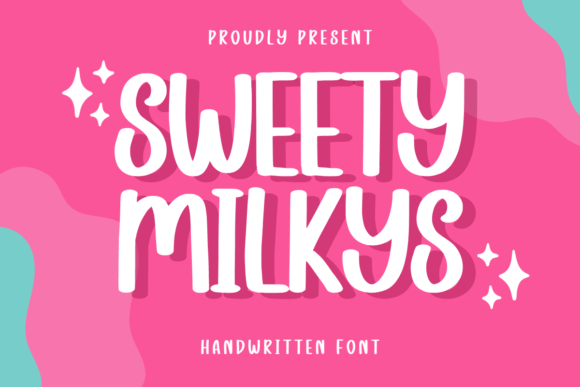
Step into the realm of enchanting typography with Sweet Milkys, a font family that personifies adorable handwriting and exudes a captivating charm. Every letter dances and twirls across the screen, leaving a trail of whimsical elegance. Suitable for a wide range of creative projects, these fonts will infuse your designs with a delightful touch of playfulness.
Indulge in the limitless possibilities that Sweet Milkys offers. Its sweet strokes and charming curves seamlessly blend to form words that resonate with warmth and kindness. Let your imagination soar as you explore endless applications for this versatile font. From heartfelt quotes and heartwarming greetings to unique branding projects, Sweet Milkys adapts effortlessly, adding a personal touch to every creation.
Embrace the allure of handwritten artistry with Sweet Milkys. Its playful nature lends itself perfectly to personalizing invitations, crafting heartfelt posters, or designing eye-catching social media posts. Unleash your creativity and let your words flow onto the page, adorned with the captivating beauty of Sweet Milkys's unique characters.
Step into the world of Sweet Milkys, where fonts dance and play, creating a symphony of visual delight. From vibrant LED displays that capture attention to playful t-shirts that spark conversations, the Sweet Milkys font family transforms ordinary designs into enchanting works of art. Let your imagination run wild as you explore the endless possibilities that these charming fonts offer.
Discover Sweet Milkys today and unlock a world of creative possibilities. With its handwritten charm and versatility, this font family will elevate your designs to new heights, leaving a lasting impression on all who encounter it. Whether you're a seasoned designer or just starting your creative journey, Sweet Milkys is the perfect companion to bring your vision to life.